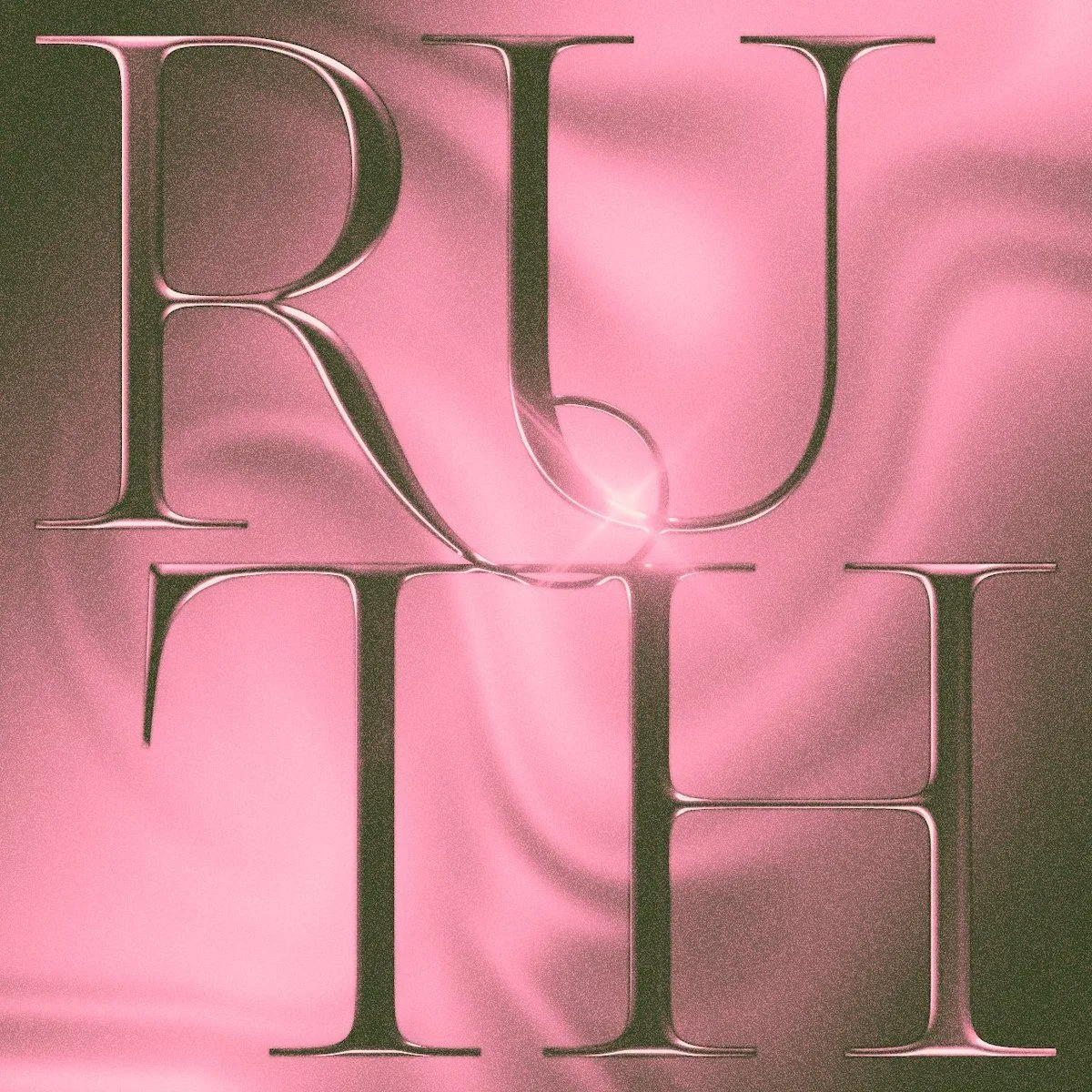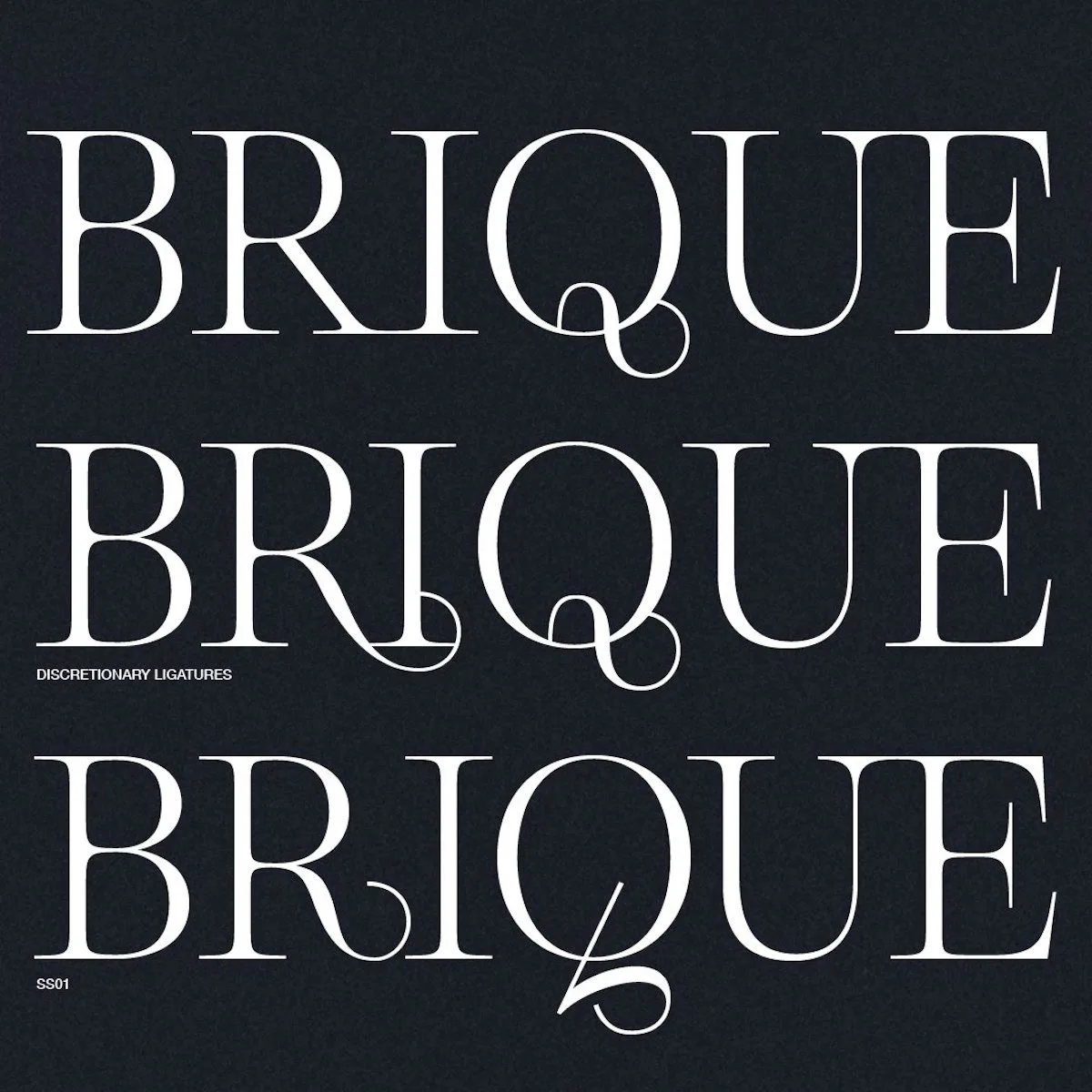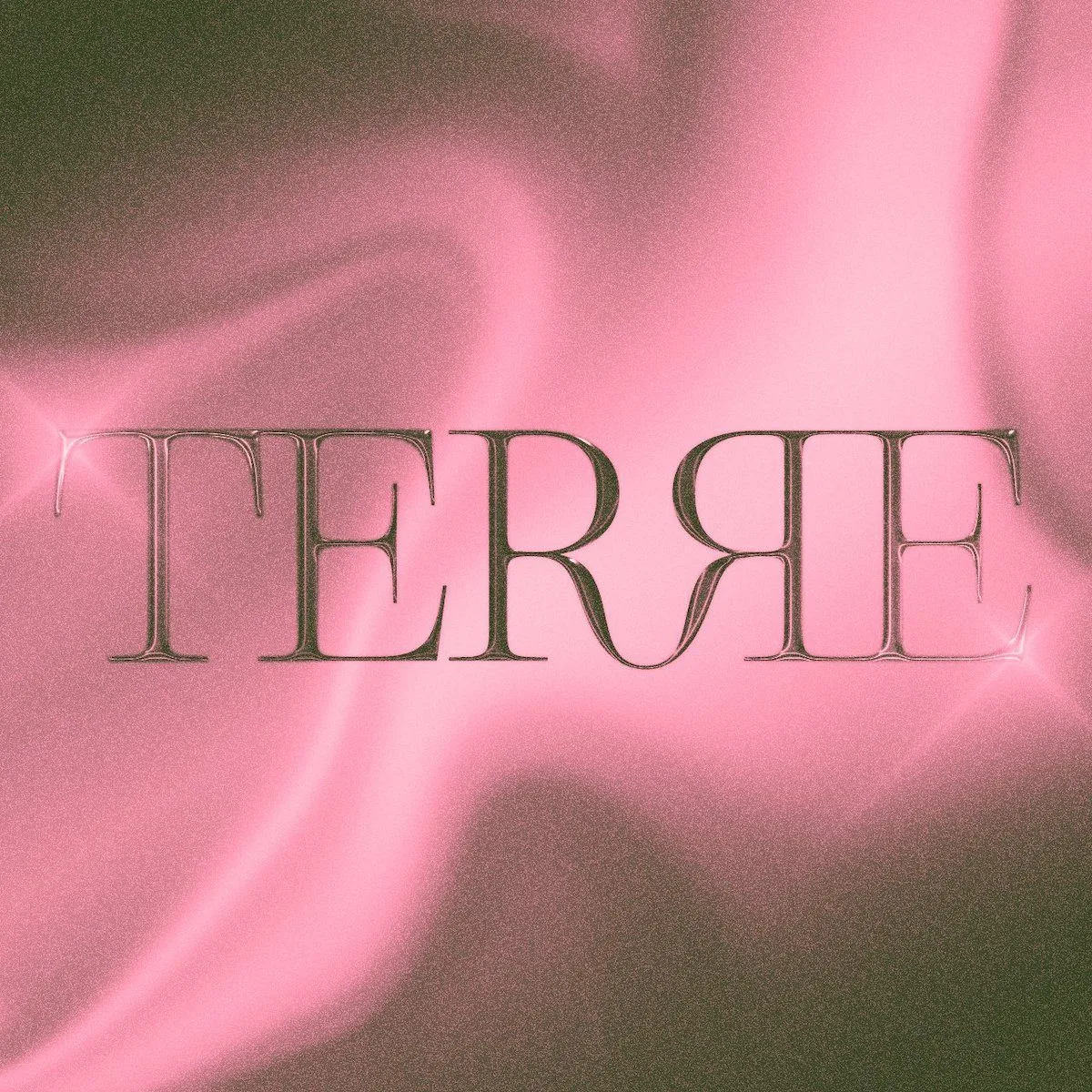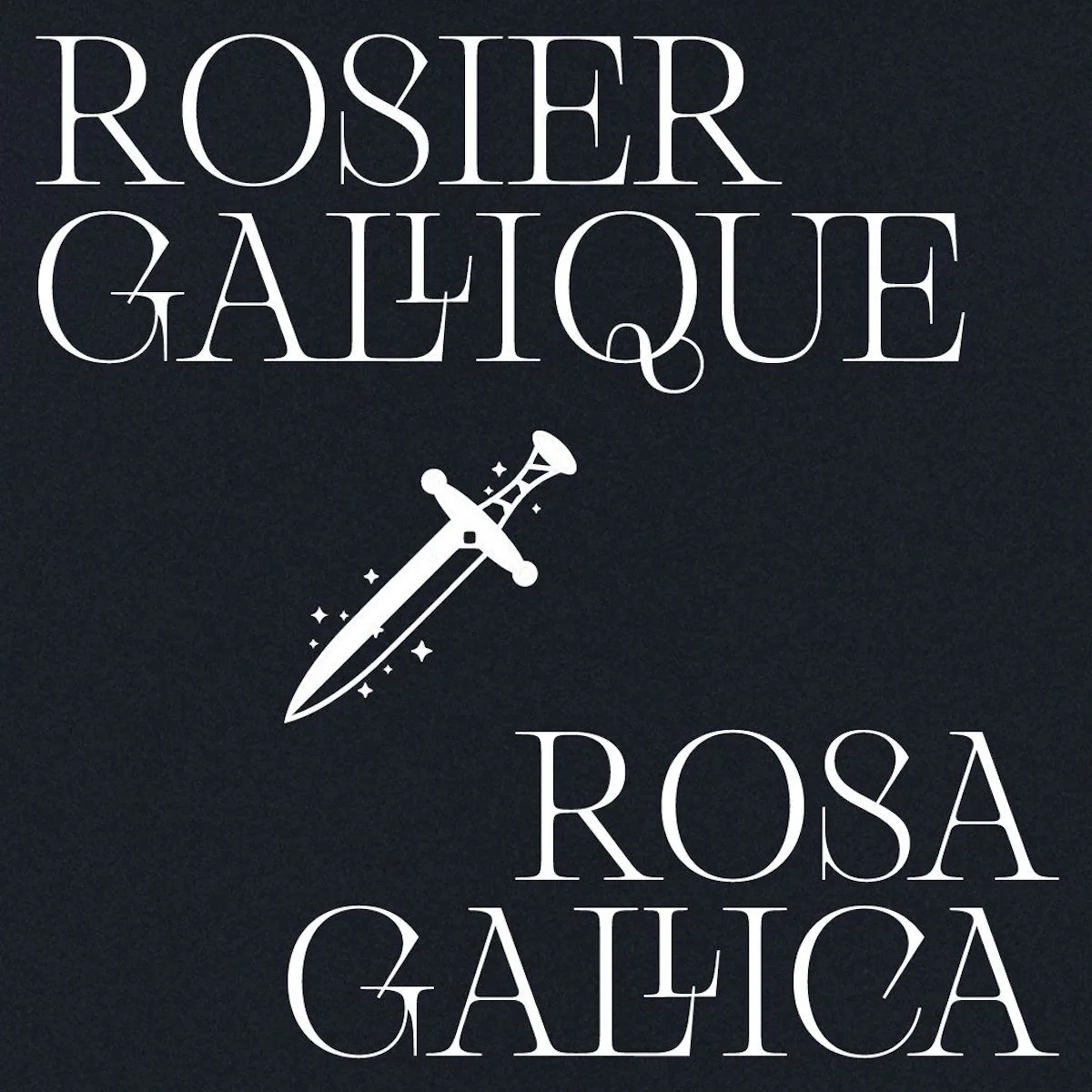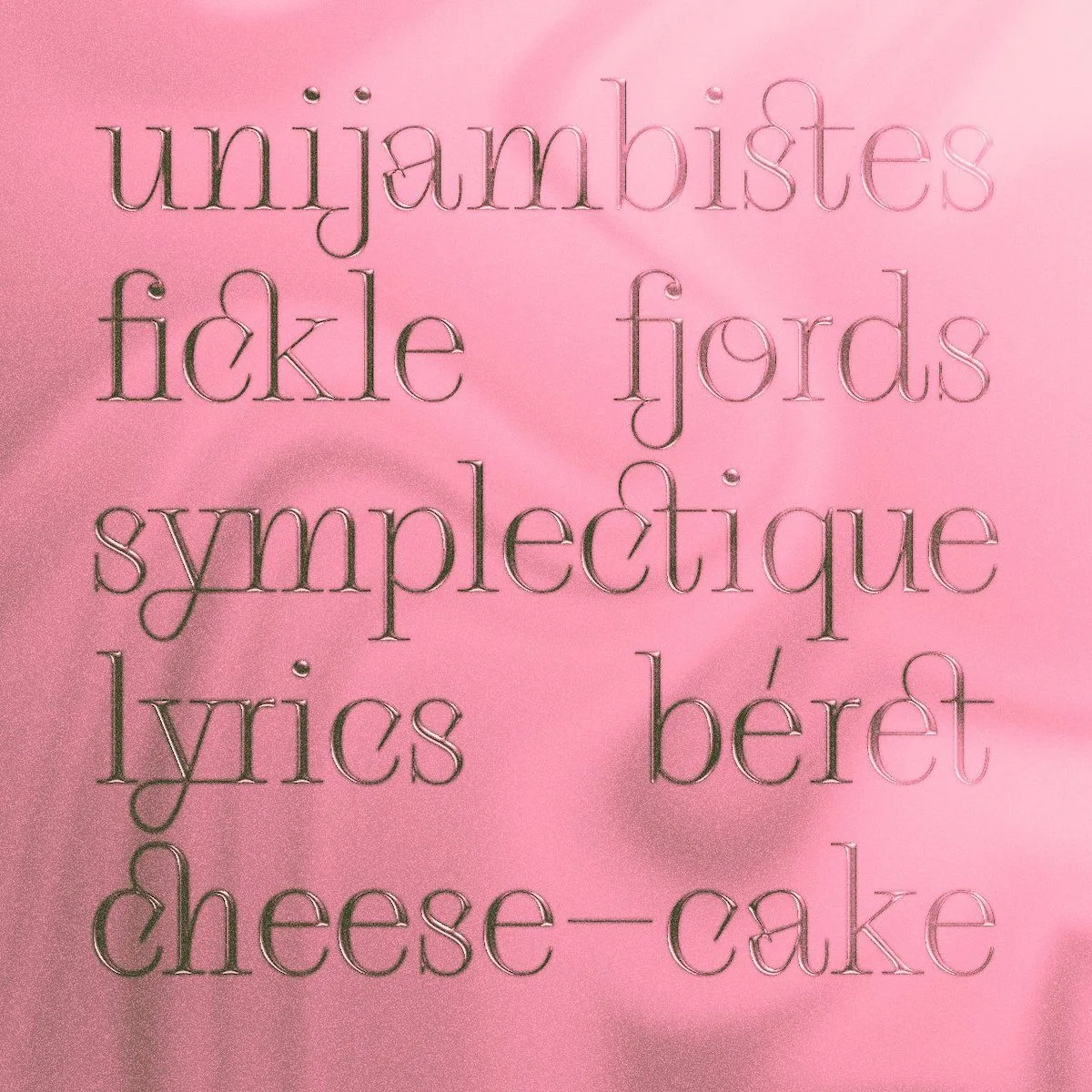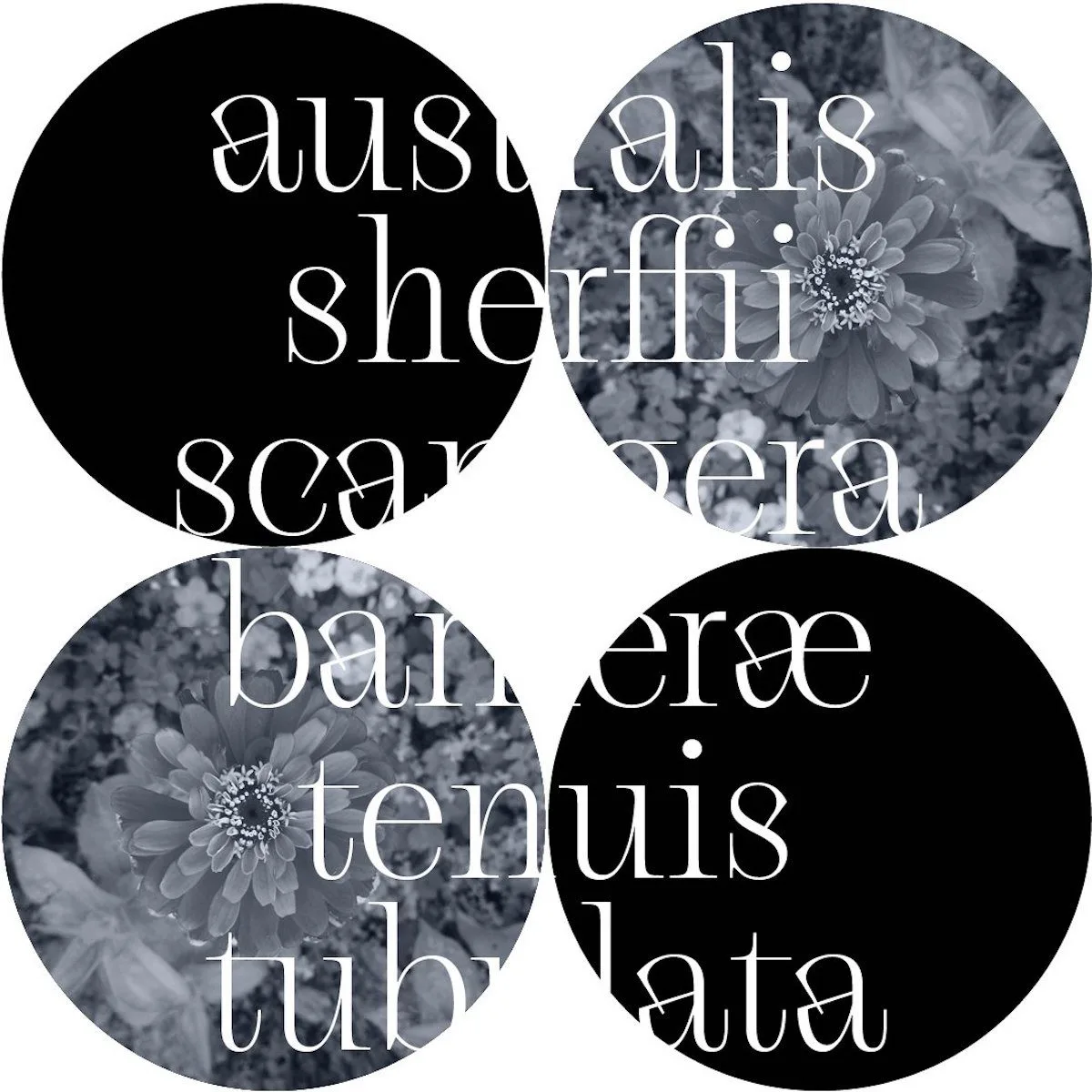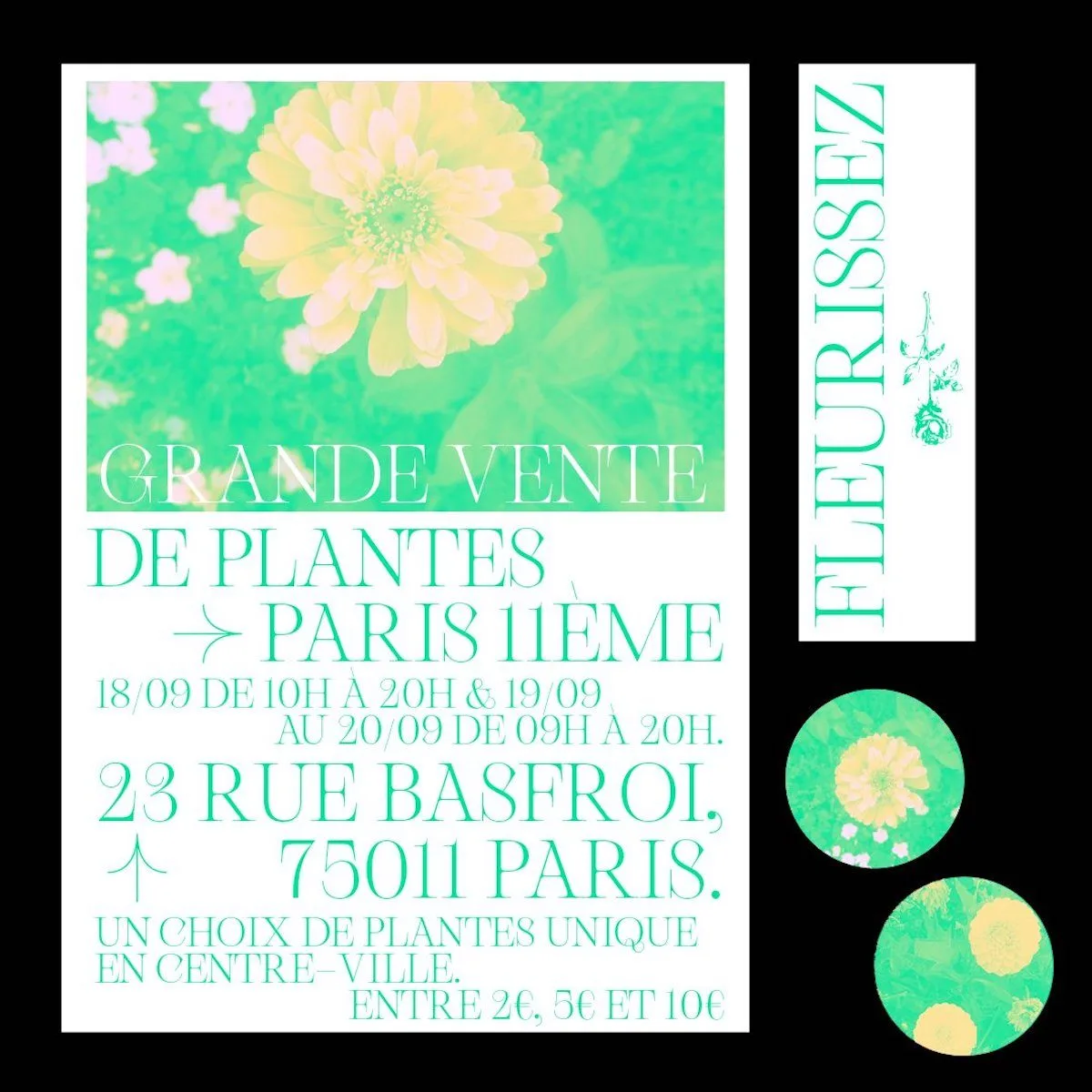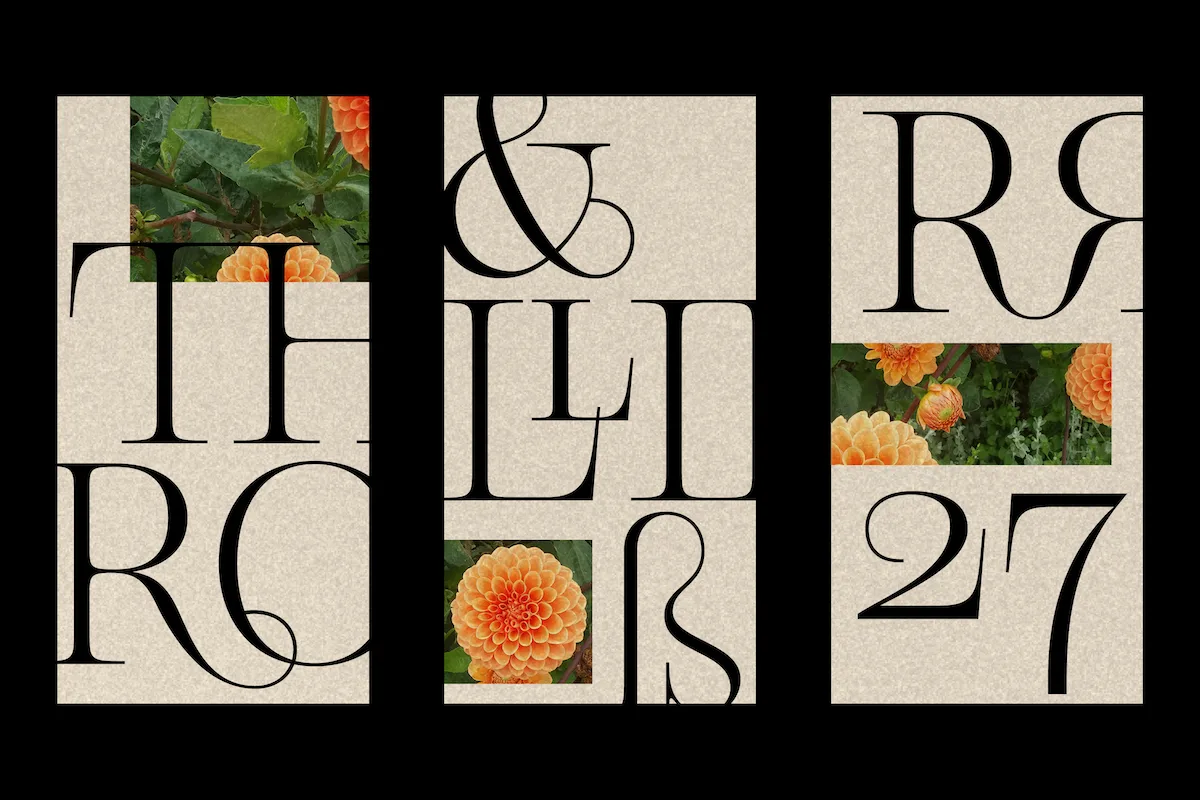
We’re so excited to share the release of the brand new stunning updated features of the much loved modern serif display, Gallique Light.
Designed by the incredible French Graphic & Type Designer Emma Marichal, Gallique V.2 retains all of Gallique‘s thorny, hypnotic character, while bringing some incredible new updated features to play around with.
Gallique takes its name from the oldest of the garden roses, Rosa Gallica. The duality of soft petals met with prickling thorns soaks into the design of its juxtaposing forms to create a truly expressive, experimental take on a contemporary serif.
While Gallique was already the perfect balm for ligature lovers, the updated features of Gallique V.2 come with even more sophisticated, stunning ligatures alongside a whopping 150 added glyphs, including added diacritics, corrections and alternate glyphs.